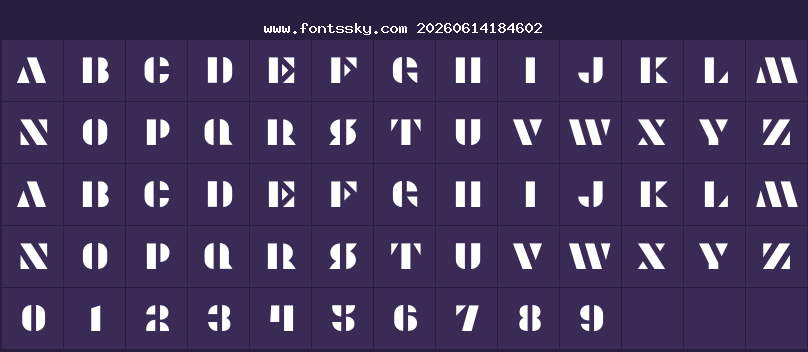
• Font Name: Modernia
• Designer: Daler Mukhiddinov
About Modernia.otf
Modernia.otf is a modern, elegant sans-serif font designed for ultimate readability and visual harmony. Perfect for branding, headlines, web design, and print materials.